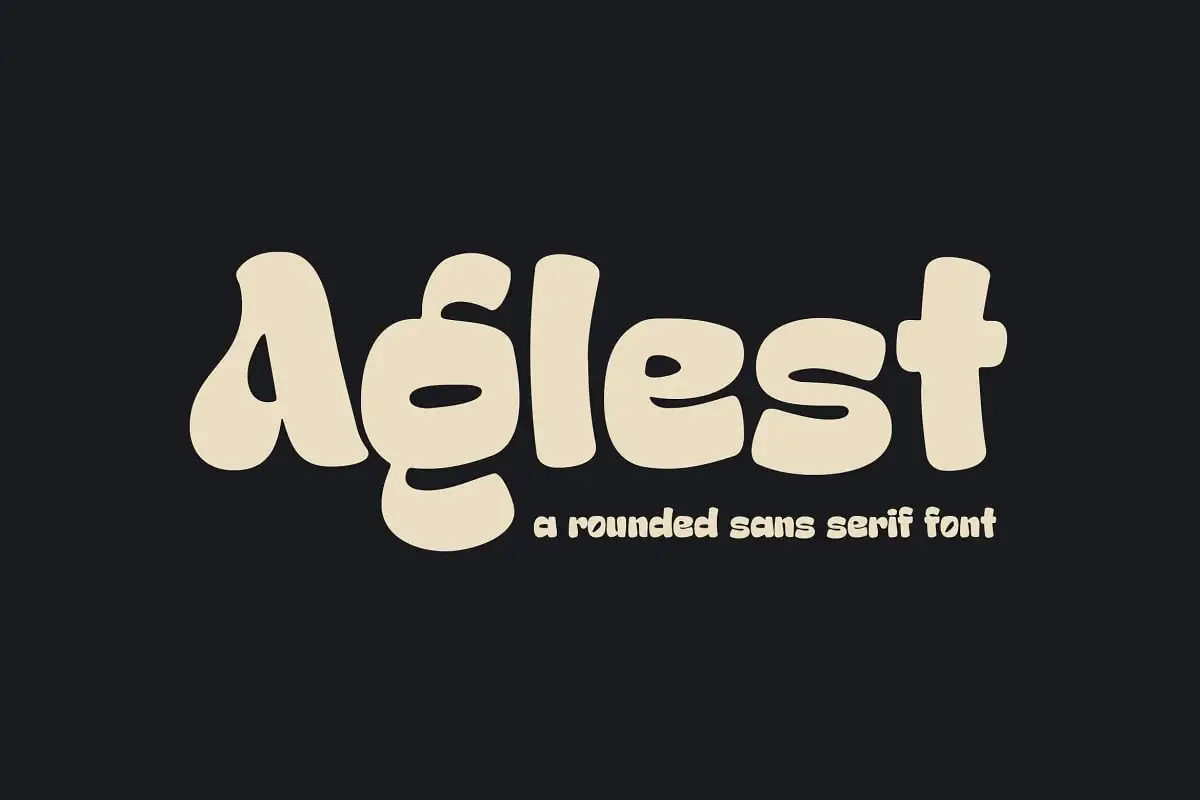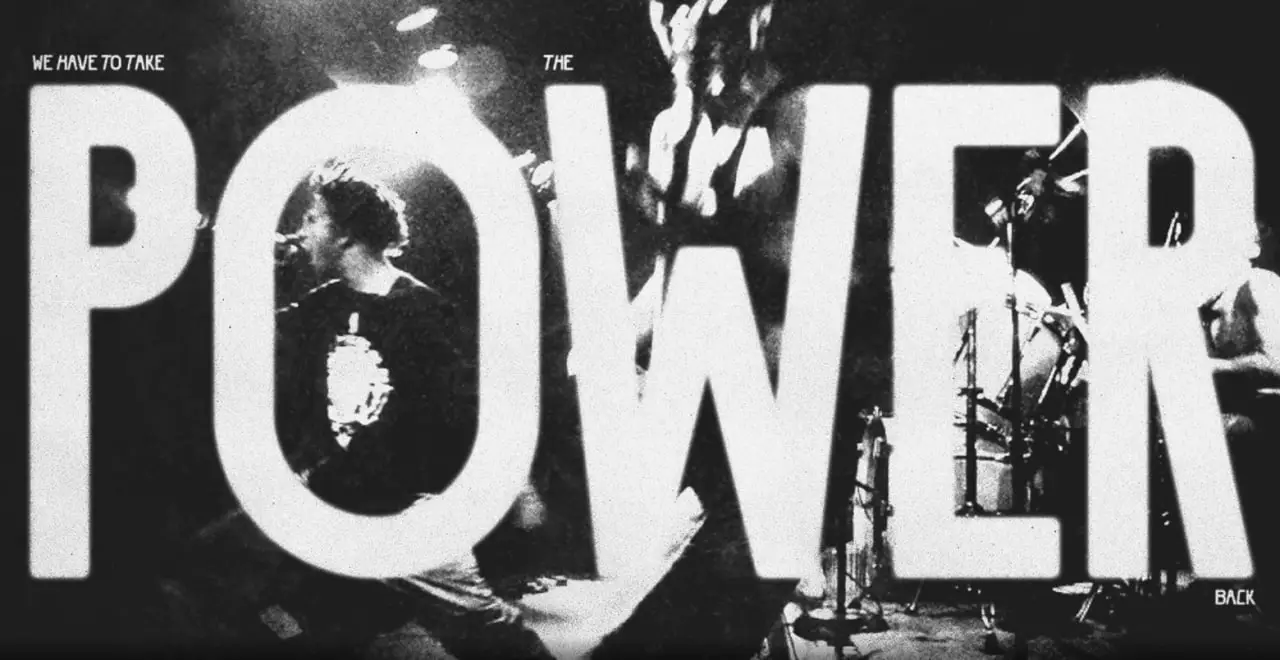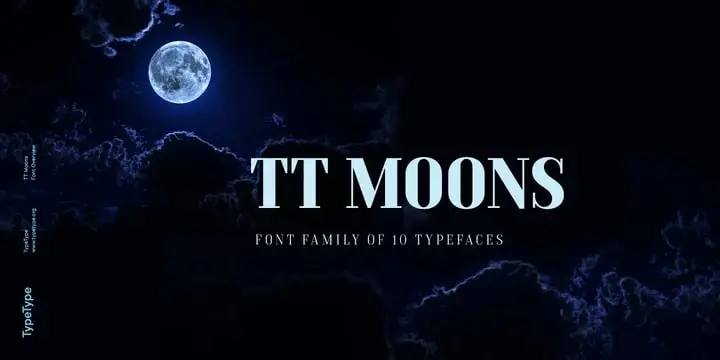
Hey there, creative soul! 👋 Ready to give your design toolkit a serious glow-up? We’ve dug deep into the vault and curated Brushespack Collection Part 62, and let me tell you—this lineup is pure fire. 🔥 From elegant serifs that whisper sophistication to bold, modern fonts that scream for attention, this list has everything you need to make your next project unforgettable. Let’s dive in! 🚀
Why Use These Fonts & Design Assets?
Whether you’re crafting a killer brand identity, designing a dreamy website, or putting together eye-catching social media graphics, the right typography can make or break your work. This collection isn’t just about letters; it’s about personality, mood, and impact. 🎨 Using these professional-grade assets will save you hours of fiddling and instantly elevate your designs to a whole new level of “wow.”
Top 20 Picks from Brushespack Collection Part 62
Aliénor Display
This font is a total showstopper! ✨ With its elegant curves and bold presence, Aliénor Display is perfect for headlines and logos that demand attention. Get ready to make a statement! 💥
Aeksob-Modern Serif Display Font
If you’re into that sleek, contemporary serif vibe, Aeksob is your new best friend. It’s elegant, versatile, and just oozes class—perfect for branding projects that need a touch of luxury. 🖤
Aglest A Rounded Sans Serif Font
Friendly, modern, and oh-so-smooth! 🍦 Aglest brings a soft, rounded touch to your designs that feels both playful and professional. Ideal for web design and modern branding.
Alternoon By Putracetol Studio
This digital design asset is a hidden gem! 💎 Alternoon brings a fresh, customizable aesthetic that works wonders for marketing materials and web design. Your creative projects will thank you.
Arina Font
Clean, modern, and incredibly versatile—Arina is the typeface you’ll find yourself reaching for again and again. It’s perfect for logos, websites, and everything in between. A total workhorse! 🐴
Zuume Font Family
Need a whole family of fonts? 🏡 The Zuume Font Family has got you covered with multiple styles and weights. It’s a complete toolkit for any branding or print project that demands consistency and style.
Vogue Paris Vogue Floral-Family 3 Styles © 2007 By Henrik Kubel
Oh là là! 🇫🇷 This collection is dripping with Parisian elegance. With beautiful floral accents and three distinct styles, this font family is a dream for any project needing a touch of vintage romance. 🌸
Yapari By Teguh Arief
Modern, high-quality, and super easy to customize—Yapari is a digital asset that fits perfectly into both personal and commercial projects. Add it to your toolkit today! 🛠️
Volante-Condensed Sans
Short on space but big on style? 🚀 Volante-Condensed Sans is the perfect solution! Its elegant, condensed structure fits beautifully into tight layouts without losing any of its modern charm.
Virzo Font
With its super clean lines and contemporary feel, Virzo is a typeface that just works everywhere. It’s stylish, readable, and ready for your next big branding project. 💪
Typetype Moons Font Family Extended Latin & Cyrillic
Going international? 🌍 The Moons Font Family supports both Latin and Cyrillic scripts, making it a global superstar. With weights from light to bold, it’s elegantly crafted for clarity and impact.
Unione Font Cyrillic By Tomo Fonts (24Xotf + 1Xttfv)
Massive value alert! ⚠️ With 24 OTF files and a TTF file, the Unione Font gives you incredible flexibility. Those elegant Cyrillic characters are absolutely stunning for any Slavic-inspired project.
Snugle Font By Pentagonistudio
Soft curves meet sharp edges in this beautifully crafted typeface. Snugle is stylish, contemporary, and perfect for designs that want to stand out with a unique personality. 🐾
Ocera Font
If modern branding had a poster child, it would be Ocera! 🖼️ With clean lines and elegant curves in Regular, Bold, and Italic, it’s perfect for logos and UI that need a sleek look.
Peter Bushuev Naum Type 2018-Base&Bloom
Style meets functionality with this digital asset! 🌱 Base&Bloom comes in multiple weights and looks absolutely stunning in both web and print applications. A must-have for serious designers.
Raina By Donis Miftahudin
Raina is pure poetry in motion! 📝 Its unique blend of soft curves and sharp edges makes it incredibly versatile for branding, logos, and web design. Get ready to fall in love.
Peach Daisy Font
Sweet, playful, and full of charm! 🍑 Peach Daisy is the typeface for projects that need a sprinkle of whimsy. Perfect for invitations, kids’ stuff, or any design that wants to smile.
Power Font
Don’t let the name fool you—Power Font is as versatile as it is stylish. With multiple weights and a modern aesthetic, it’s the perfect go-to for any creative challenge. 💥
Pp Neue Machina 2
Geometric, minimalist, and oh-so-clean! 🤖 Pp Neue Machina 2 is a modern typeface that shines in branding, advertising, and digital interfaces. It’s like a breath of fresh air for your designs.